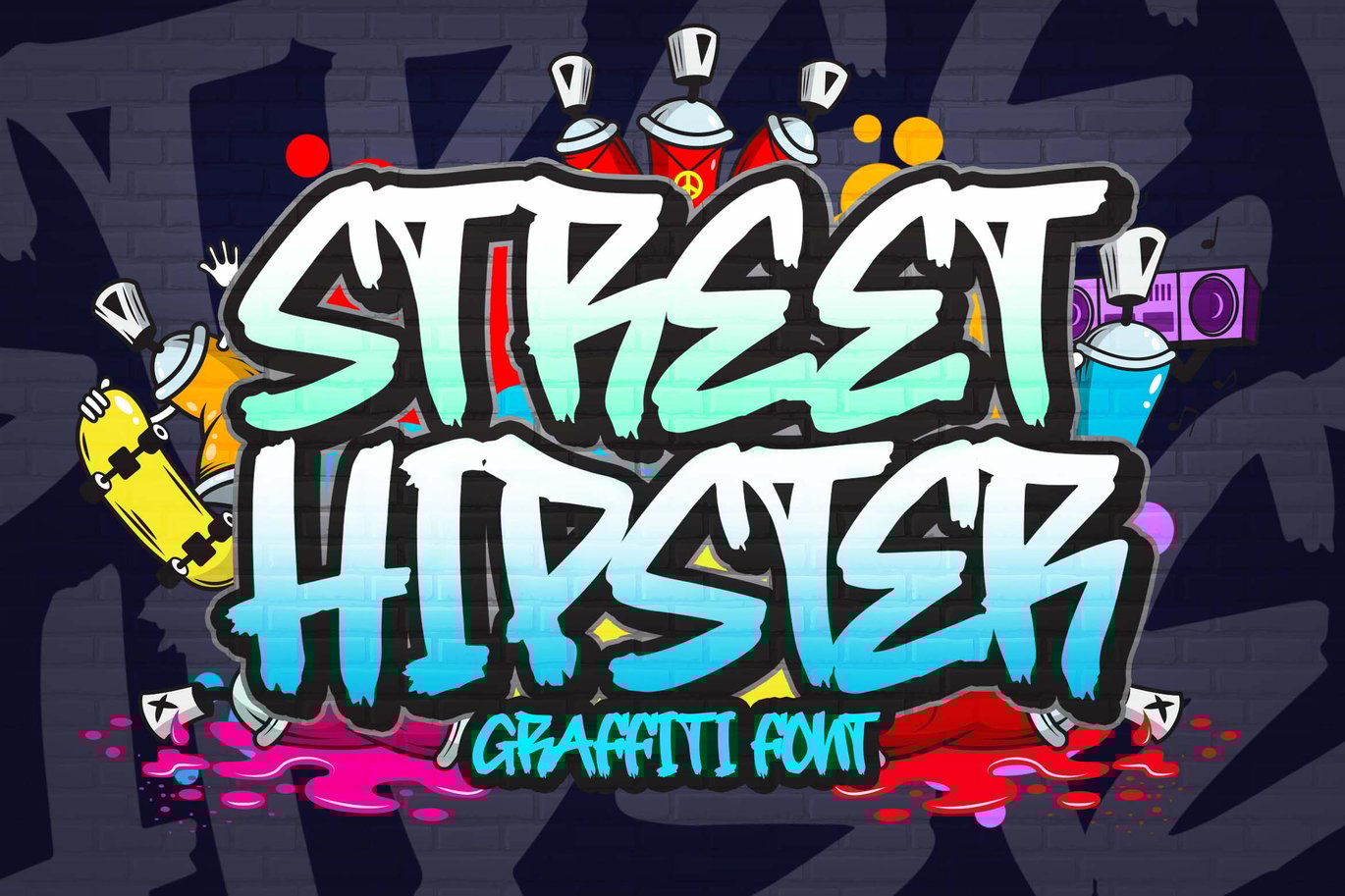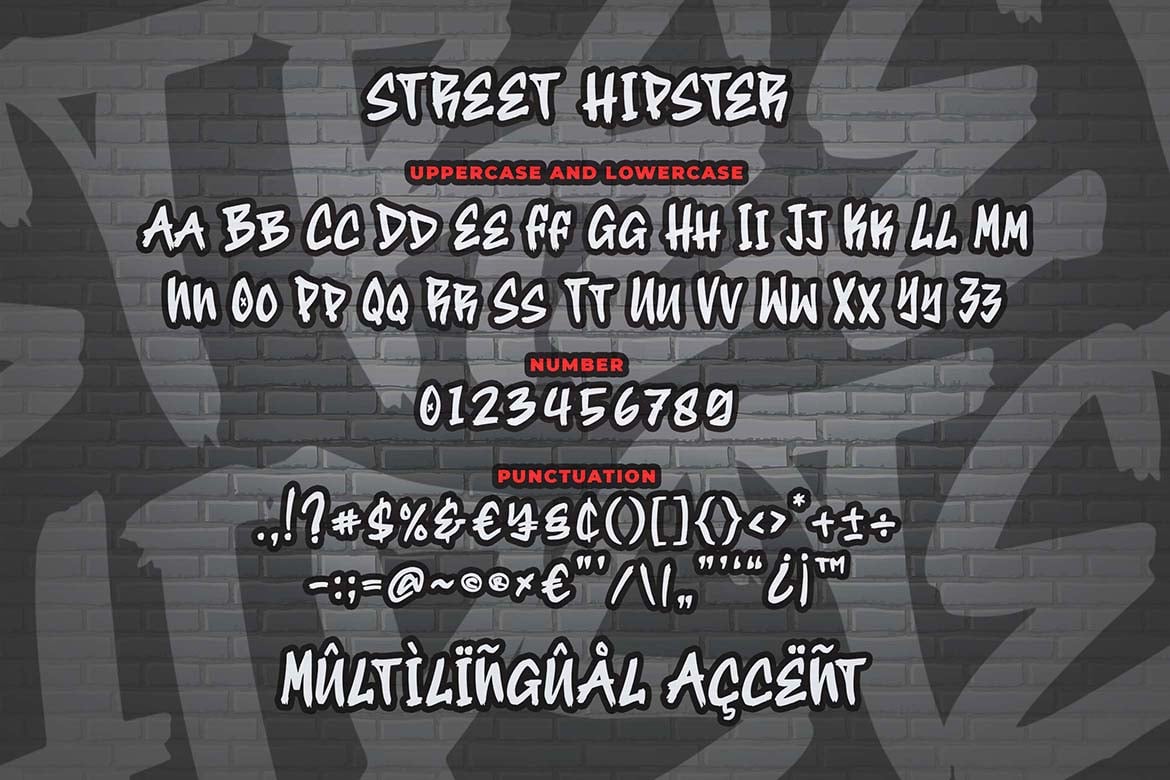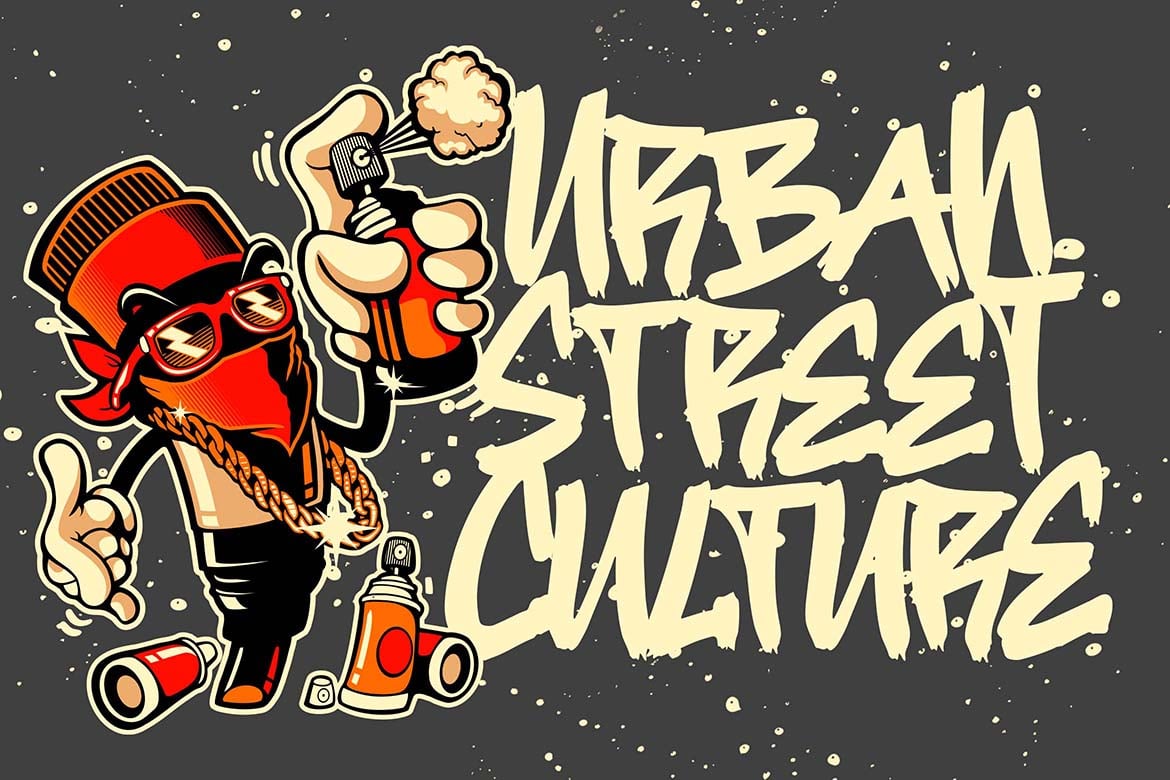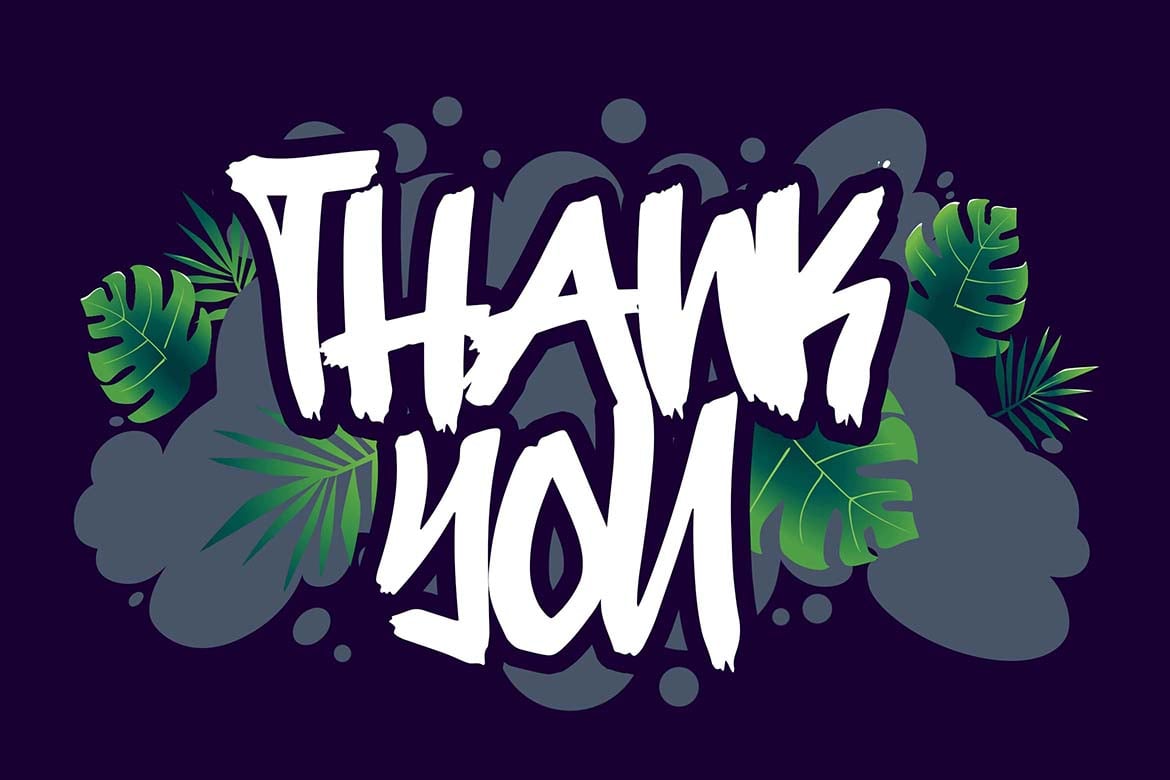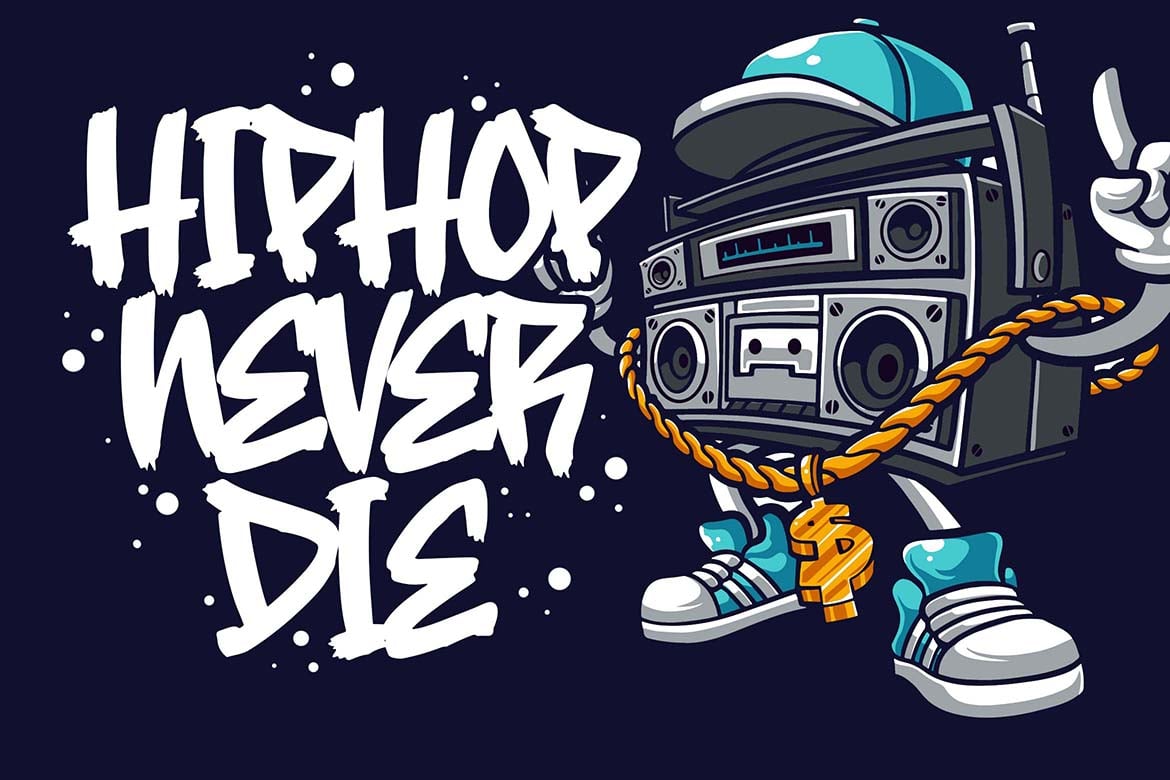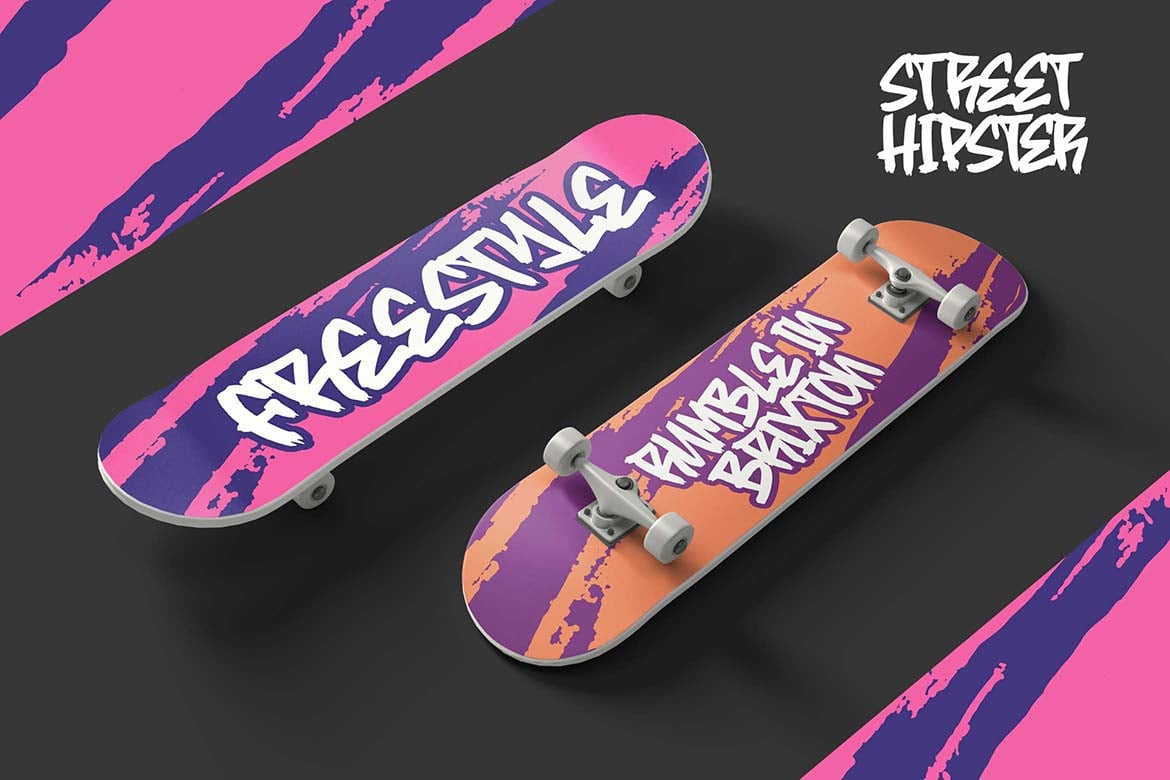
Street Hipster Graffiti Font
Introducing of our new product the name is Street Hipster Graffiti Font. Street Hipster inspired by graffiti style with a fun theme very good for graffity poster, Hip Hop music, kids poster, flyer, childrenbook, cartoon, comic etc
MULTILINGUAL ACCENT :